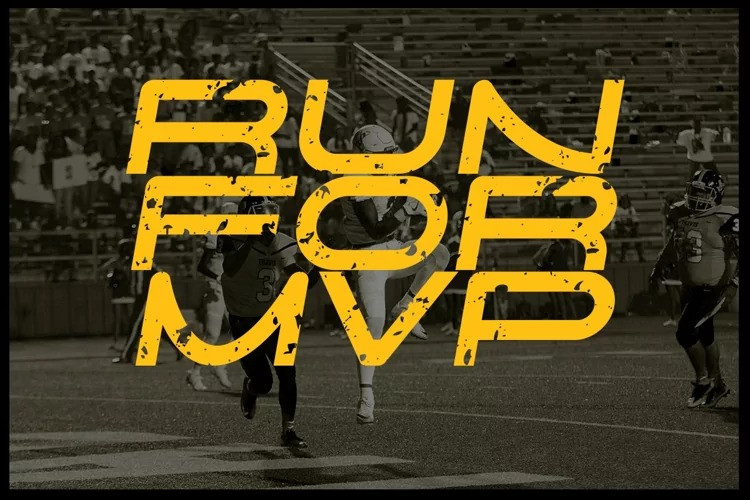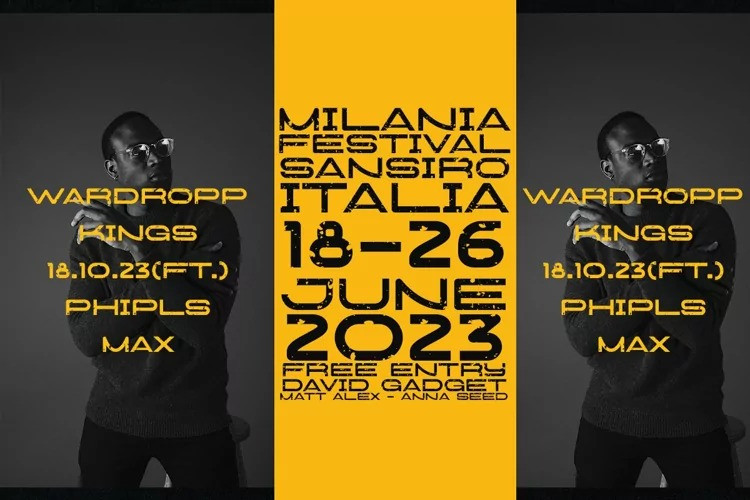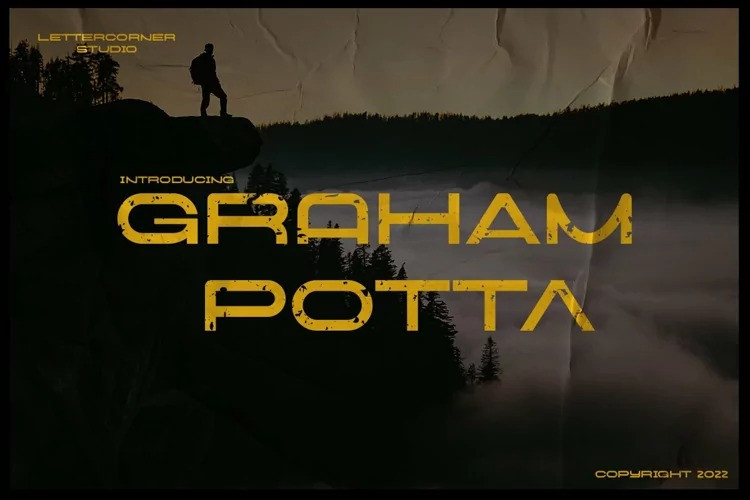
Graham Potta Display Font is a bold hand-pressed type, with a raw aesthetic and solid industrial style. The font brings a spirit of street culture, with its defiant shapes, rough edges and unadulterated imperfections.
Graham Potta Press Typeface includes a vector font and supporting high resolution.
It works best in strong design, and situations that require an authentic voice. This font is handmade and includes full original texture with density variants and original nicks and grit, with access options to suit different needs. The vector format allows the textured affect show up on any program, no additional software or updates required. The PNG’s are included for times when you want to use the font in extra large sizes and you want to make the most of every speck of detail in the prints.
Details: Graham Potta is an all caps font, with two alternatives for every letter, to maintain the custom made look, without obvious doubles. It includes numbers and punctuation, with additional foreign extensions available through me